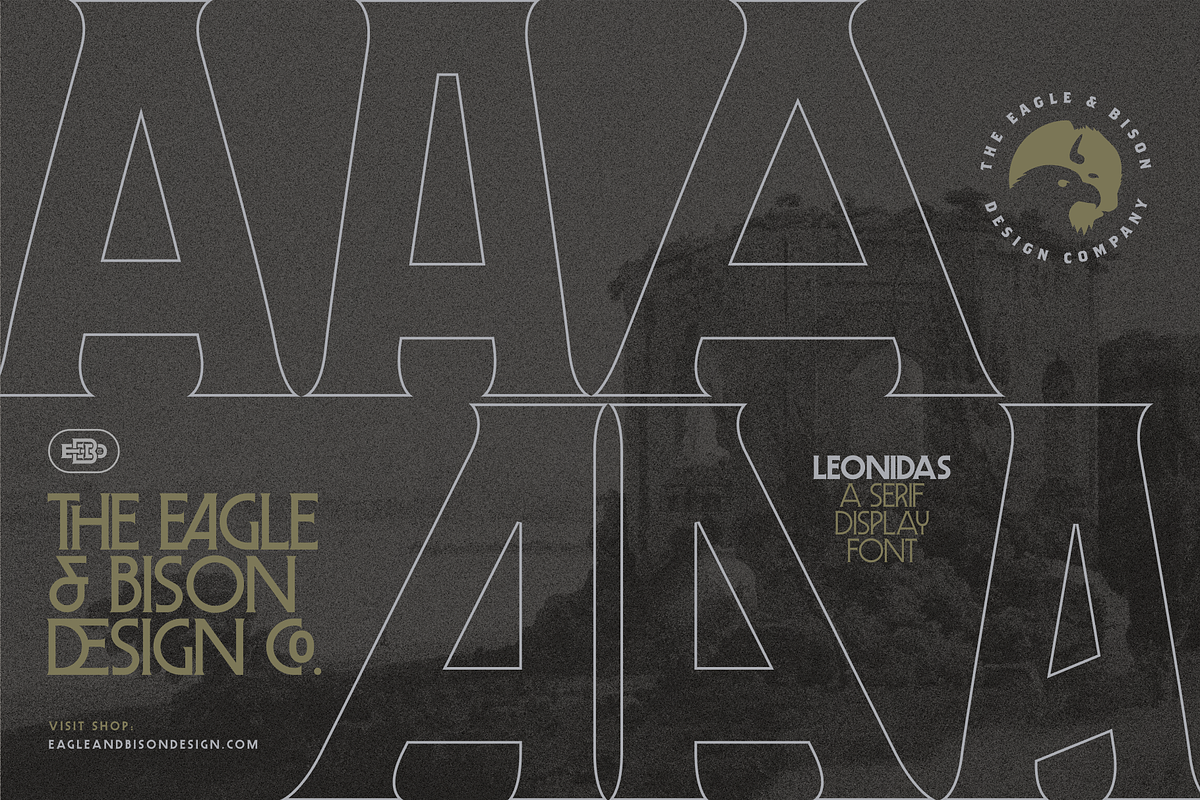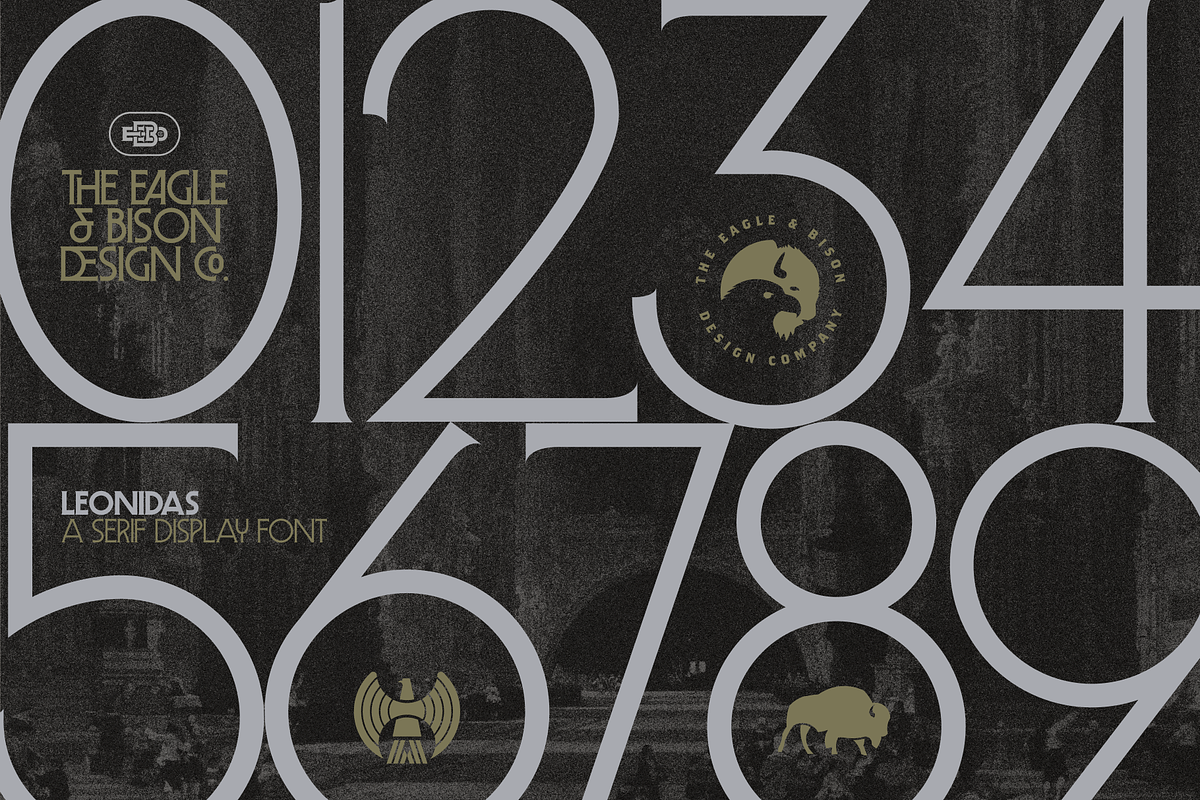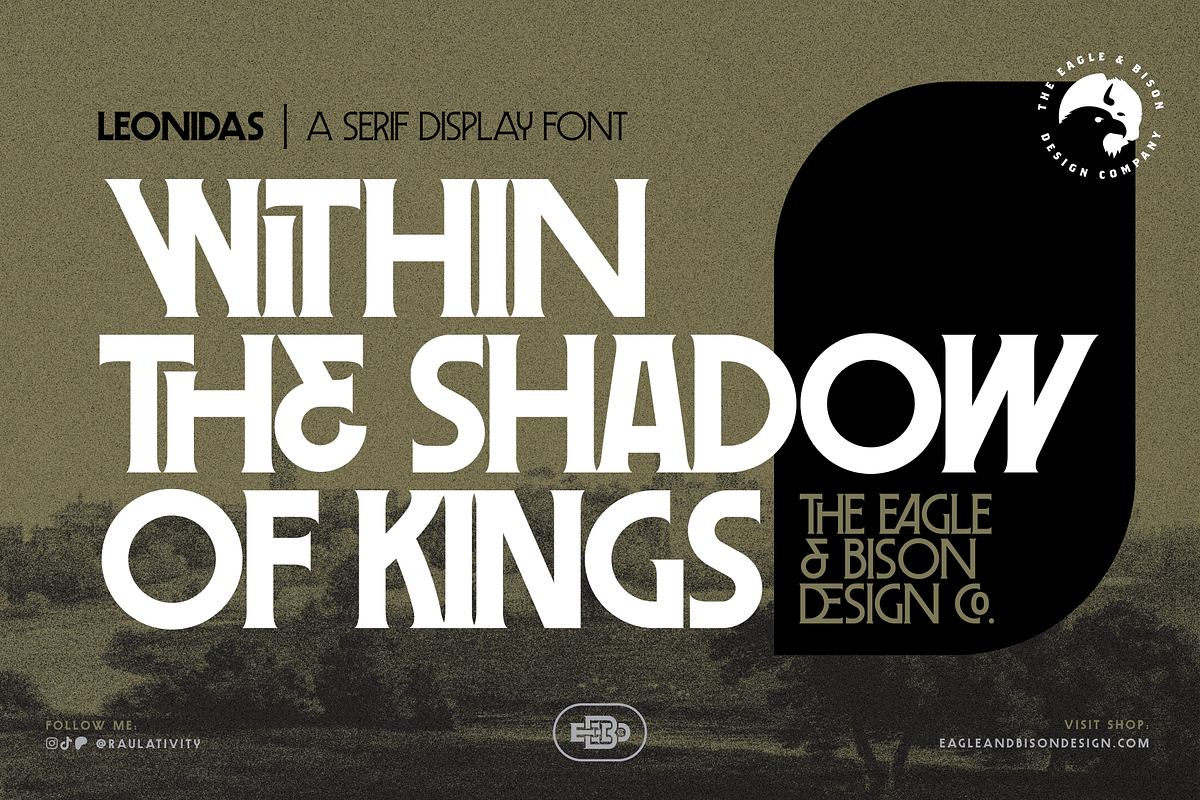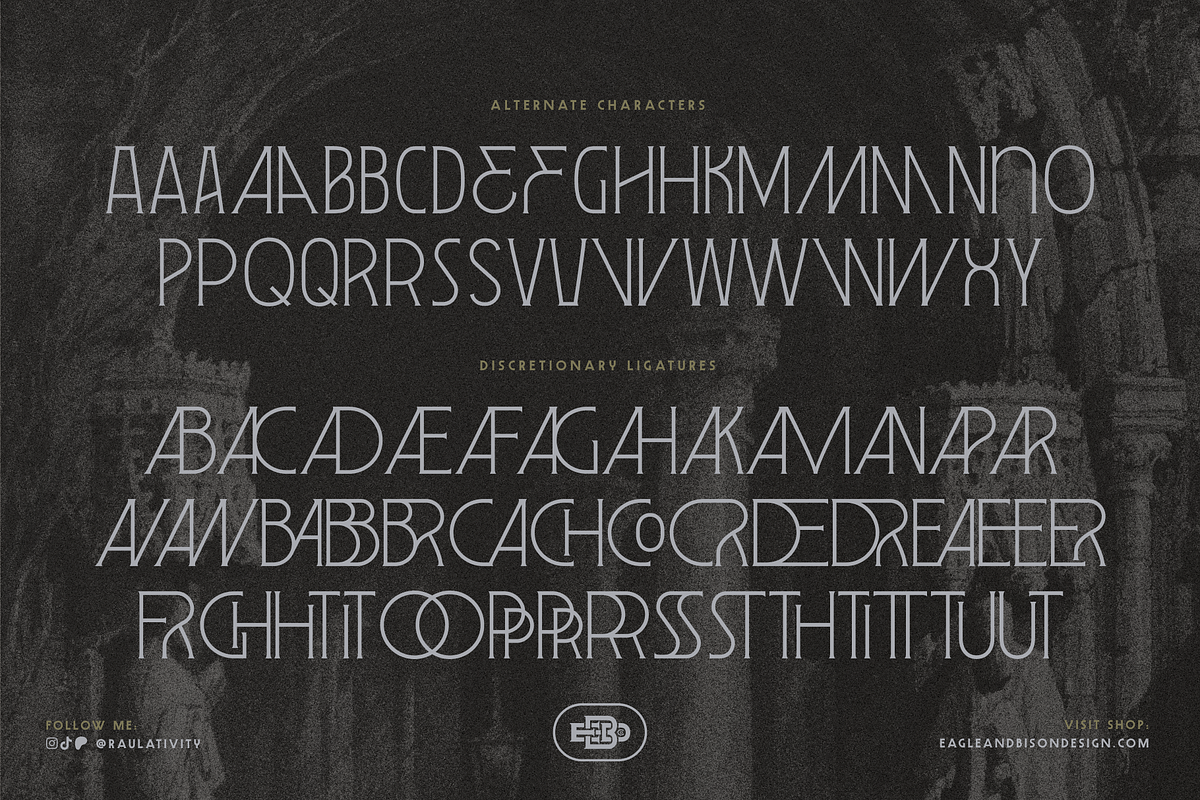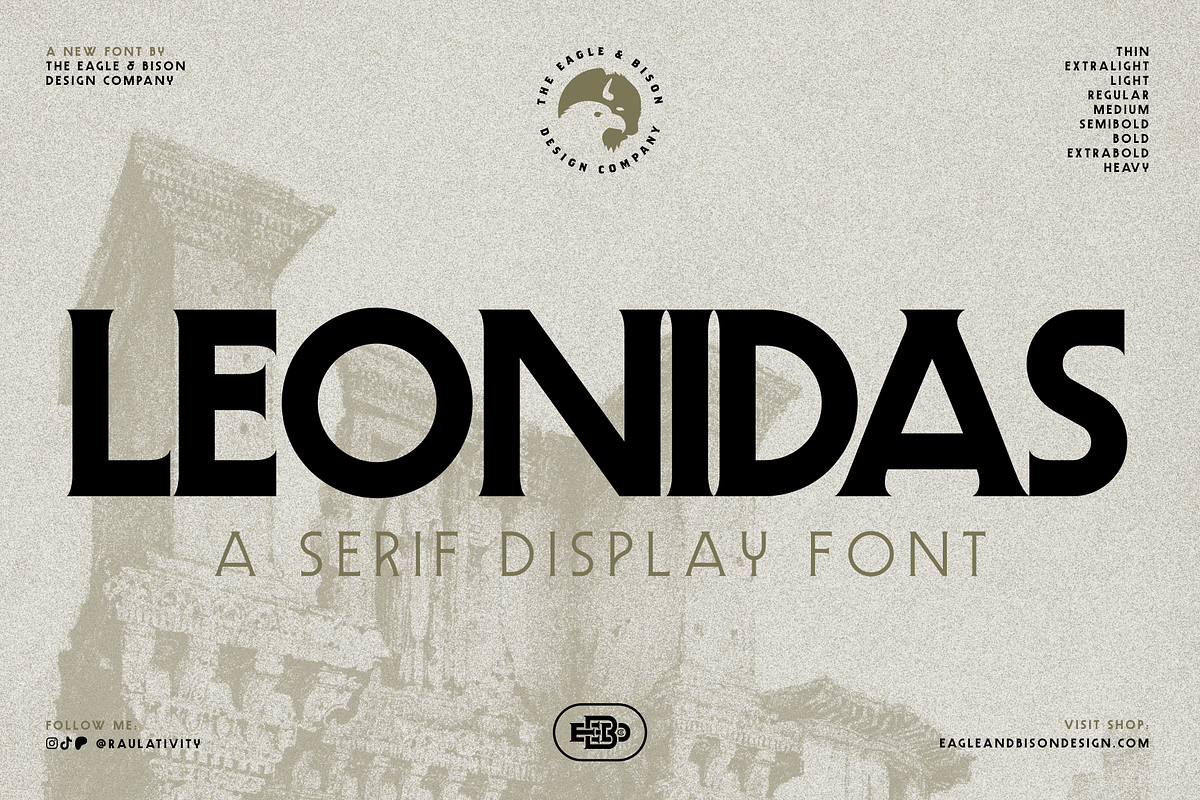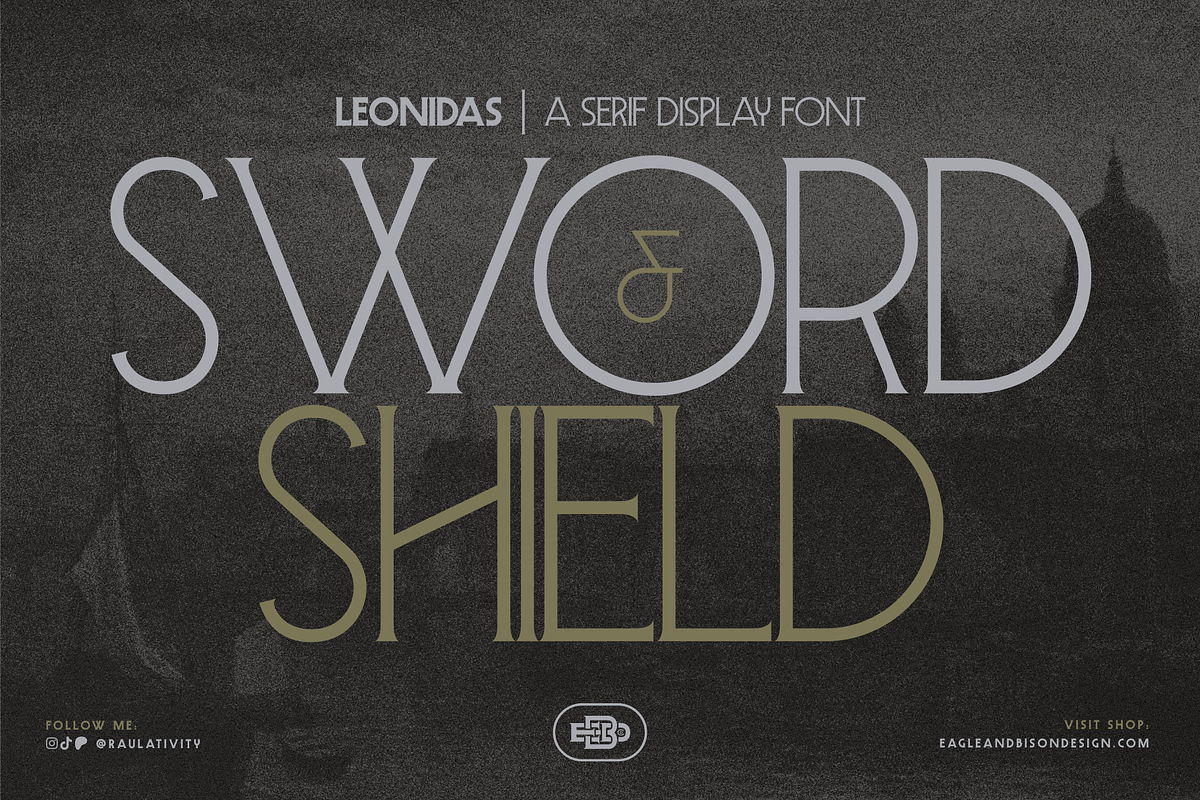
Leonidas
Introducing Leonidas, a newly rebuilt serif expansion of the Leonidas font family from Eagle & Bison Design Co. Reconstructed from the ground up with the same focus on versatility and precision, every character has been completely redrawn and refined to create better consistency, improved balance, and greater cohesiveness across all nine weights. Designed for bold branding, editorial layouts, posters, and modern display typography,
Leonidas includes nine individual weights ranging from Thin to Heavy, along with a variable weight axis for smooth customization across styles and applications.
Leonidas features a total of 177 carefully crafted characters, including:
Uppercase & Lowercase Letters
Numerals
Functional Punctuation
40 Alternate Characters
43 Discretionary Ligatures
A Range of Special Characters for Extended Use
With its refined construction, expanded weight range, and completely redesigned character set, Leonidas delivers greater flexibility, improved visual harmony, and a strong, timeless presence across everything from logos and headlines to editorial design and large-format display work.